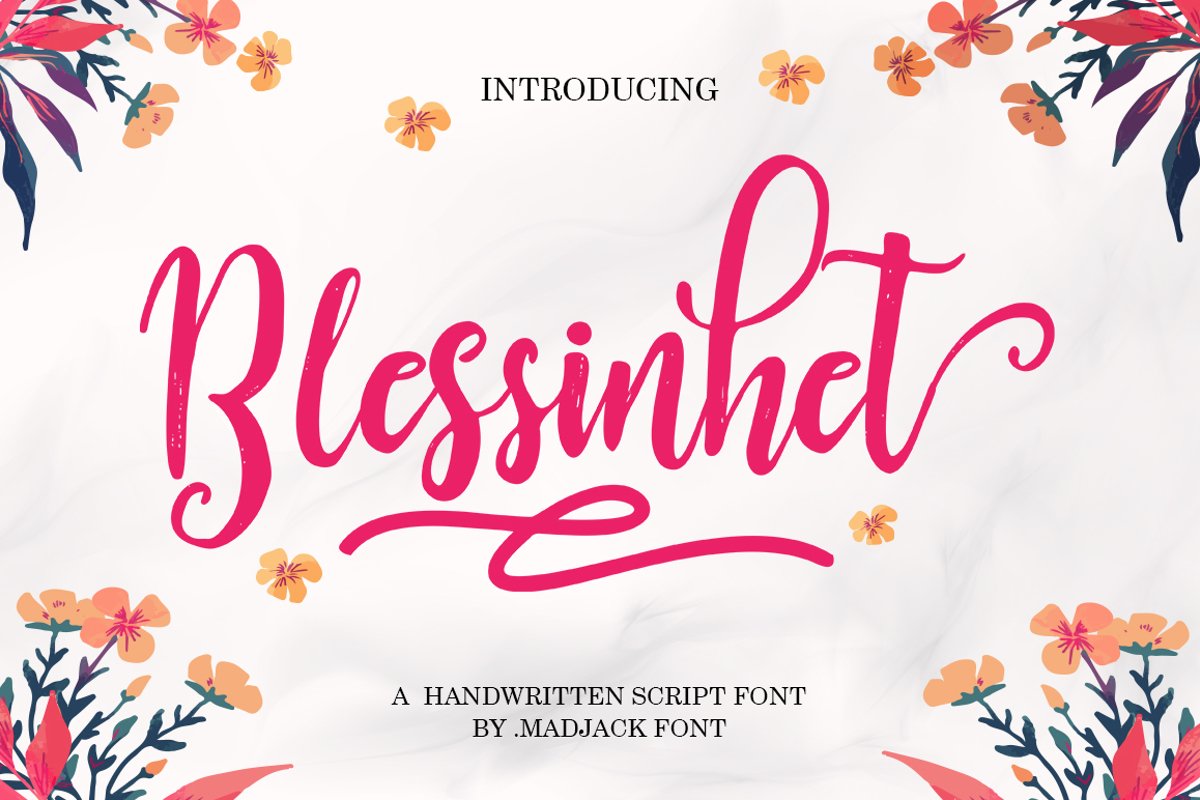
Blessinhet
Blesinhet Script
Blessinhet Italic
Blessinhet Script is a modern & clean calligraphy script, with dance characters along the base line & an elegant touch. Can be used for various purposes. Such as logos, wedding invitations, postal, t-shirts, letterhead, signage, labels, news, posters, badges etc.
OpenType features with alternative styles, binders and multi-language support.